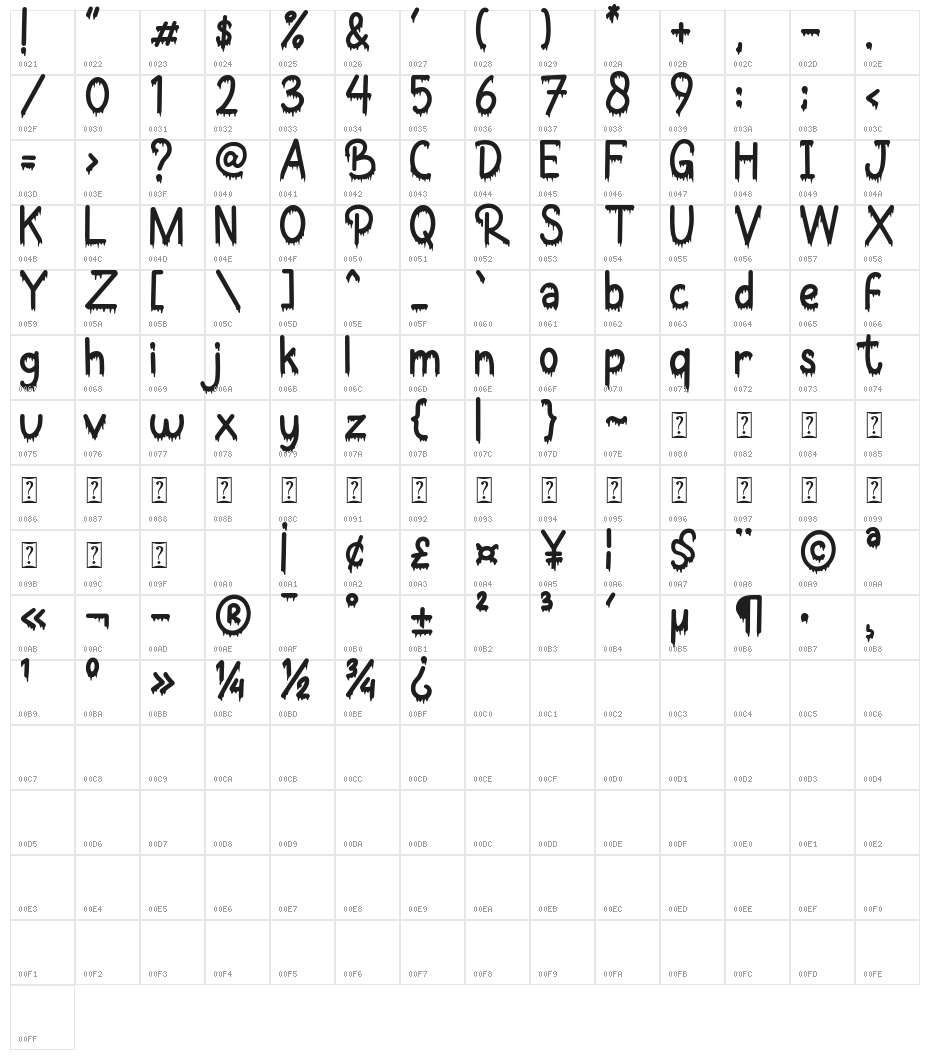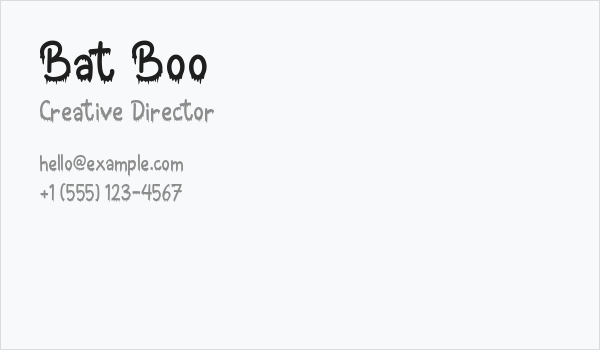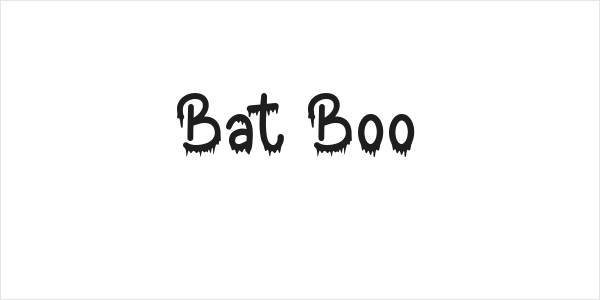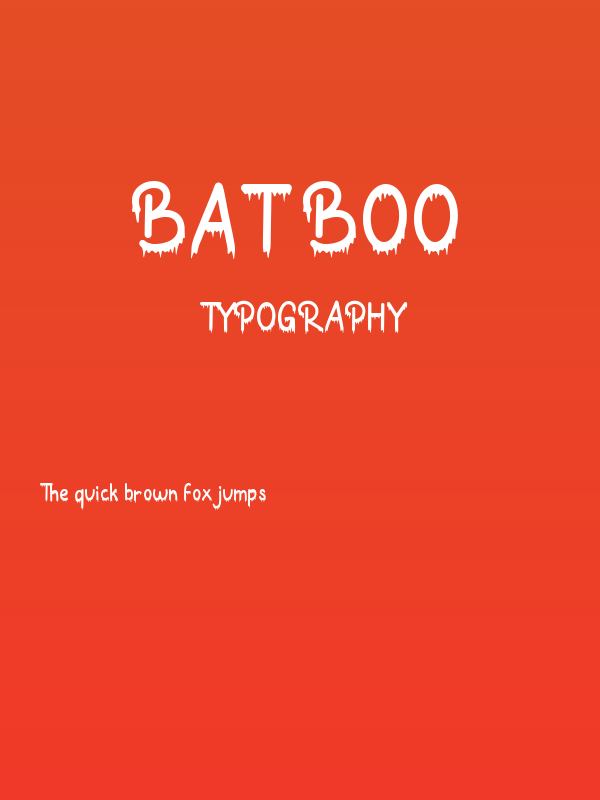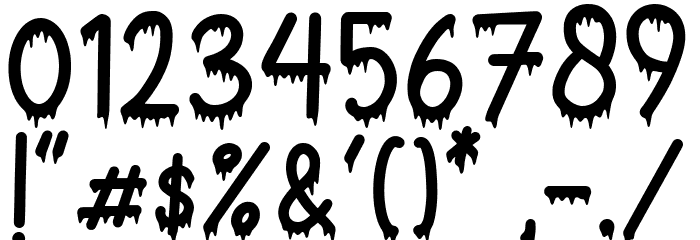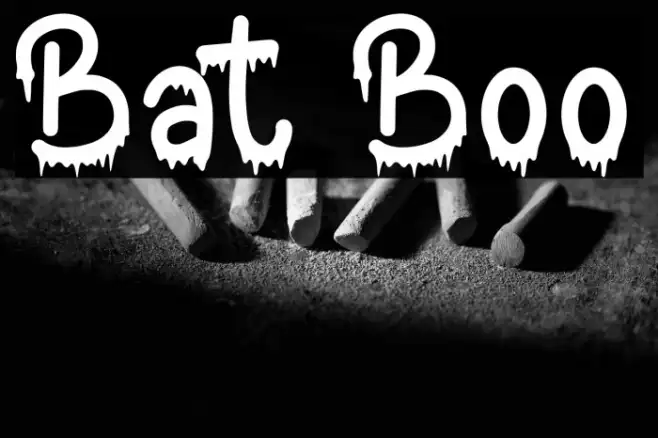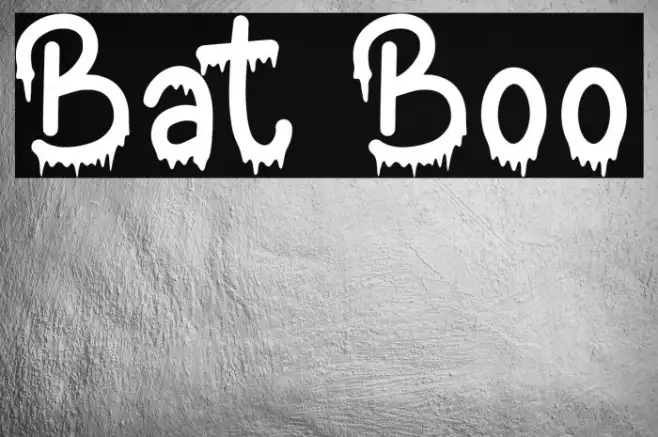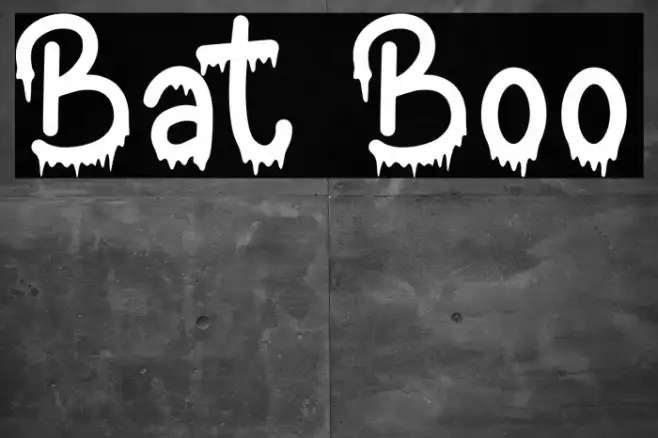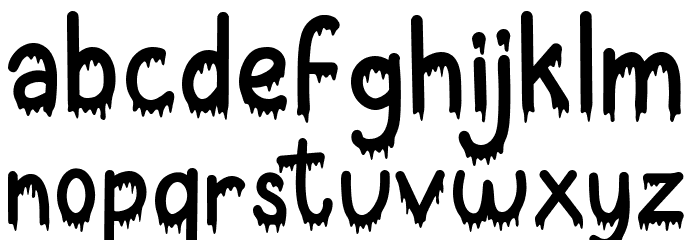
Bat Boo Font
Bat Boo Description
This font features a playful and spooky design, with each character appearing to drip or ooze, reminiscent of a Halloween theme. The uppercase and lowercase letters maintain a consistent style, with rounded edges and a slightly irregular form that adds to the eerie effect. The numbers and special characters follow the same dripping motif, making the font cohesive and visually striking. Its unique design makes it ideal for themed events or projects that require a touch of whimsy and horror. The font's bold appearance ensures readability while maintaining its decorative style.
| Proposed Projects | Ideal for Halloween invitations, horror movie posters, themed party decorations, and spooky merchandise designs. |